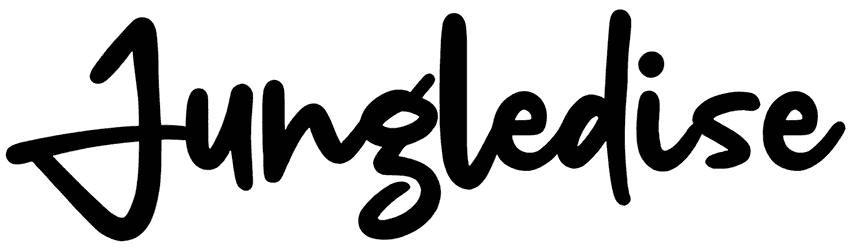
Jungledise Font
In a world where everything seems mass-produced and impersonal, Jungledise font can offer a fresh change. This handwritten font reminds us that imperfection has beauty and that sometimes the most meaningful things in life are made by hand with love and care.
So whether you’re designing a wedding invitation, a logo, or a website, using this script font can embed a piece of the artist’s soul and add depth and dimensions to it that cannot be achieved with a standard font.